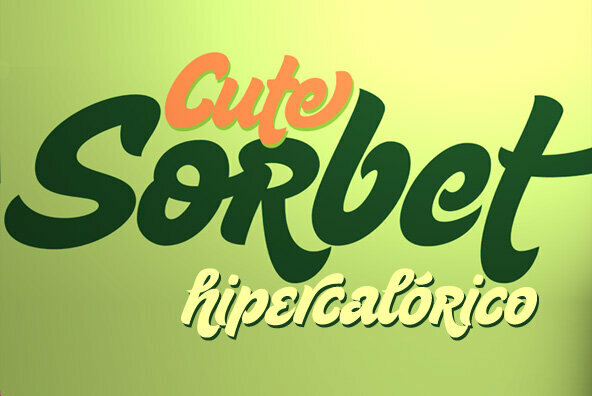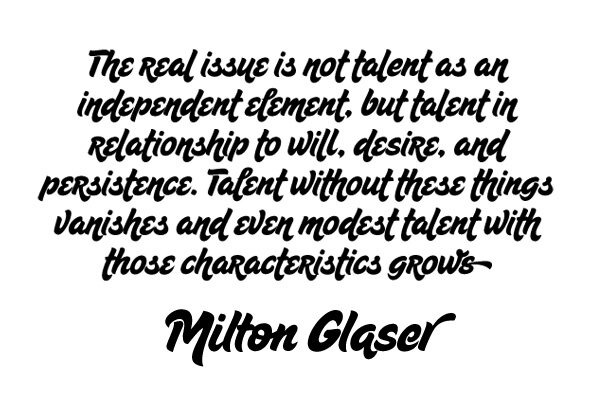
Sugar Pie
When Candy Script was officially released and in the hands of a few designers, I was in the middle of a three week trip in North America. When I got back to Buenos Aires, I found a few reactions to the font in my inbox. Alongside the congratulatory notes, flattering samples of the face in use, and the inevitable three or four 'how do I use it' e-mails, one interesting note asked me to consider an italic counterpart. I had experimented with a few different angles during the initial brainstorming of the concept, but never really thought of Candy Script as an upright italic character set. A few trials confirmed to me that an italic Candy Script would be a bad idea. However, some of these trials showed conceptual promise of their own, so I decided to pursue them and see where they would go. Initially it seemed that a few changes to the Candy Script forms would work well at angles ranging from eighteen to 24 degrees, but as the typeface evolved, I realized that all the forms had to be modified considerably in order for a typeface of this style to work as both a digital font and a true emulation of real hand lettering. Those were the pre-birth contractions of the idea for this font. I called it Sugar Pie because it has a sweet taste, quite similar to Candy Script, mostly because of its round-to-sharp terminal concept. This in turn echoes the concept of the clean brush scripts found in the different film type processes of late 1960s and early 1970s. While Candy Script's main visual appeal counts on the loops, swashes, and stroke extensions working within a concept of casual form variation, Sugar Pie is artistically a straight forward packaging typeface. Its many ligatures and alternates are just as visually effective as Candy Script's, but in a subtler and less pronounced fashion. The alternates and ligatures features of Sugar Pie contain quite a few nice variations on the main character set. Use them to achieve the right degree of softness you desire for your design.